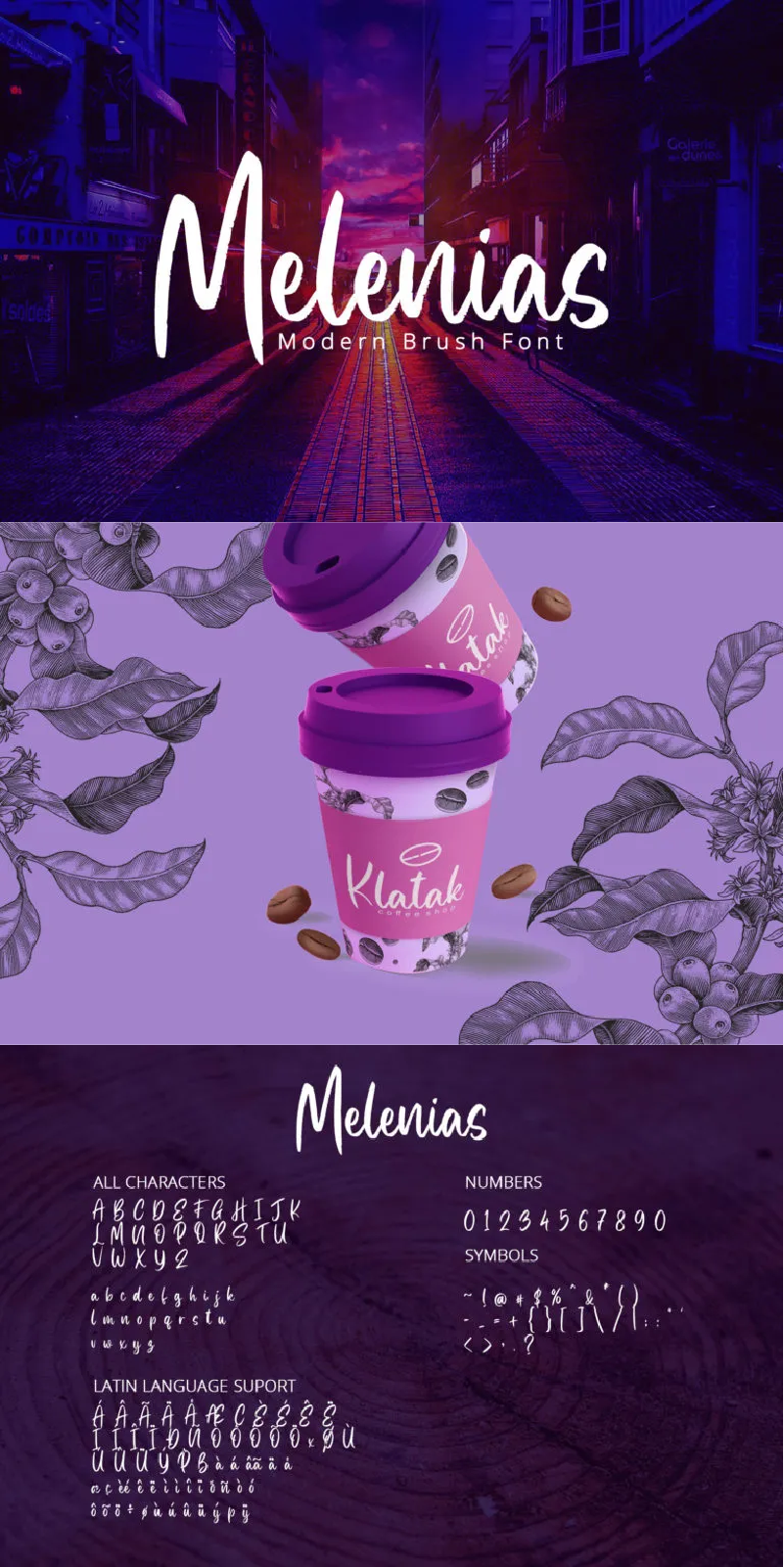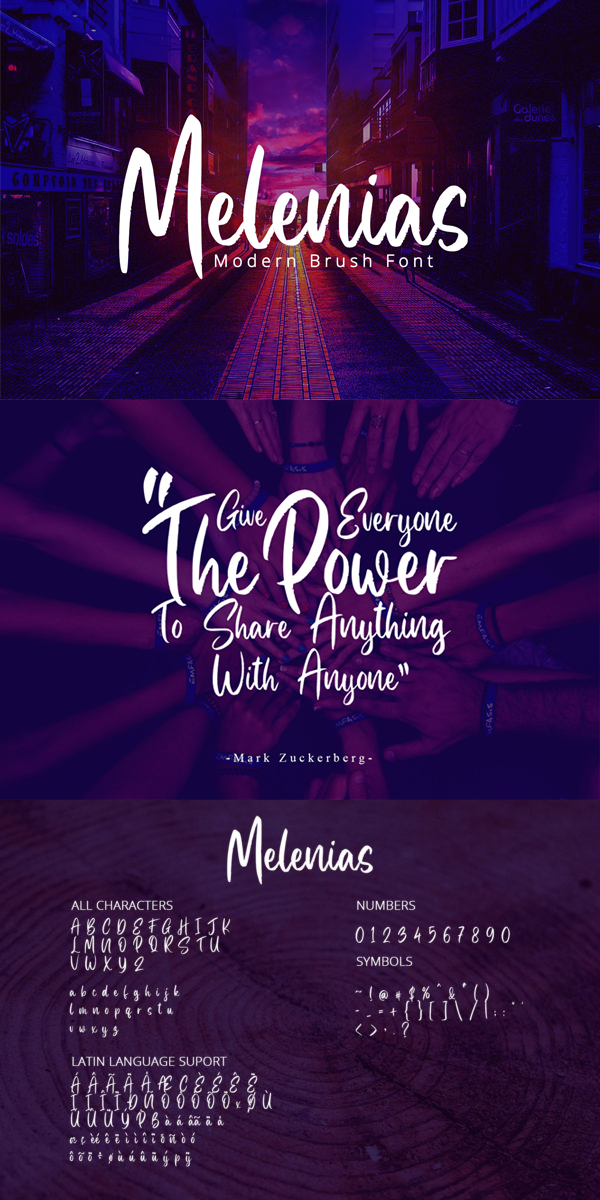
Melenias Font
About Melenias
Melenias is a casual brush font. Made for any professional project branding such as social media campaign, ads, wedding invitation, merchandise, and more. Every letter has a unique and beautiful touch. The font includes full set of hand lettered uppercase and lowercase letters, numerals, and punctuation. See the previews above to get some inspiration on how you can use them. Enjoy the font!